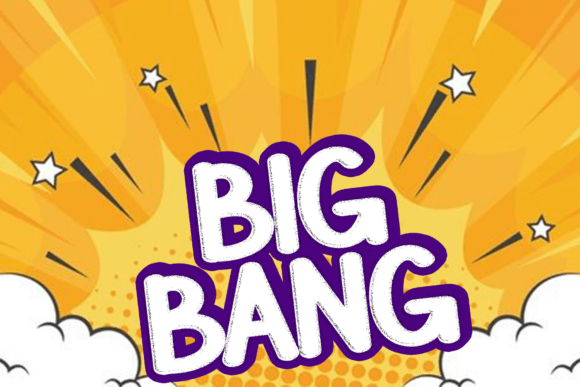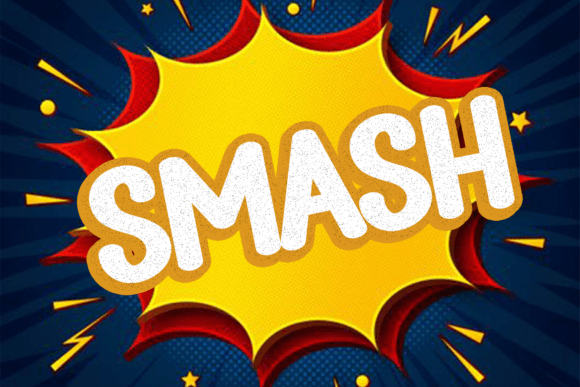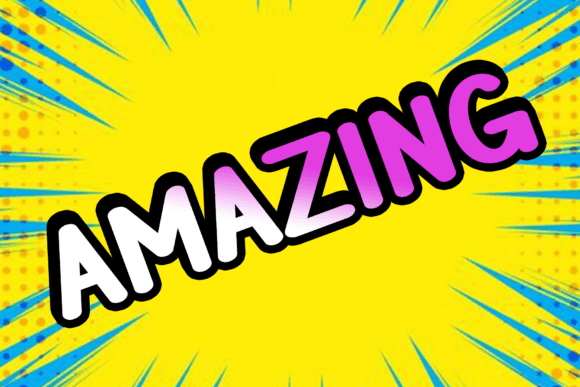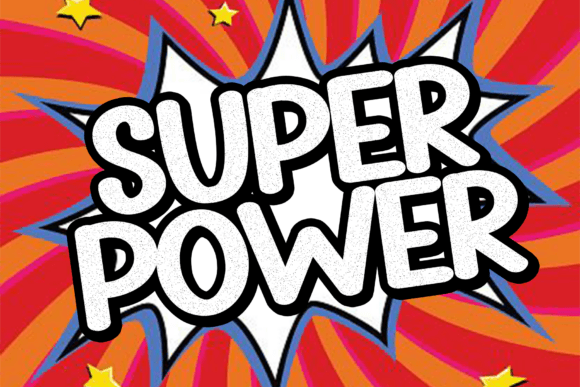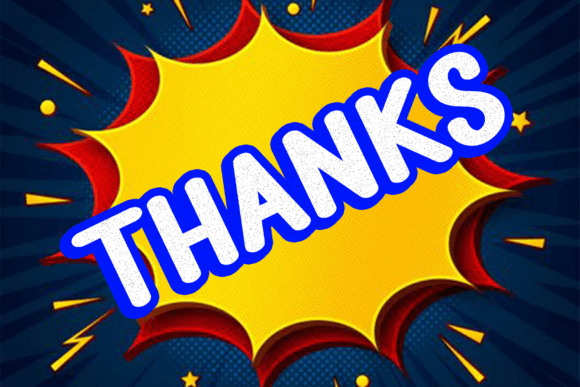
Introducing Comic Strip Font: The Ultimate Guide to Adding a Touch of Whimsy to Your Designs
Are you looking for a font that can add a dash of freshness and casual elegance to your design projects? Look no further than Comic Strip Font! This charming display font is perfect for designers and crafters who want to infuse their work with a sense of laid-back charm. In this article, we’ll dive into the world of Comic Strip Font, exploring its features, uses, and benefits.
What is Comic Strip Font?
Comic Strip Font is a display font that boasts fluid strokes and organic lines, giving it a unique and eye-catching appearance. Its casual elegance makes it perfect for a wide range of design projects, from branding and invitations to social media graphics and more. Whether you’re a professional designer or a crafty DIY enthusiast, Comic Strip Font is sure to add a touch of warmth and personality to your work.
Key Features of Comic Strip Font
- Fluid Strokes: Comic Strip Font features fluid strokes that give it a smooth, effortless look.
- Organic Lines: The font’s organic lines add a touch of whimsy and playfulness to your designs.
- Casual Elegance: Despite its casual nature, Comic Strip Font exudes a sense of elegance that makes it perfect for a wide range of design projects.
- Versatility: This font can be used for everything from branding and invitations to social media graphics and more.
Uses for Comic Strip Font
So, what can you use Comic Strip Font for? The possibilities are endless! Here are a few ideas to get you started:
- Branding: Use Comic Strip Font to create a unique and memorable brand identity that sets you apart from the competition.
- Invitations: Add a touch of whimsy to your invitations with Comic Strip Font, making them perfect for parties, weddings, and other special occasions.
- Social Media Graphics: Use Comic Strip Font to create eye-catching social media graphics that are sure to grab attention.
- Signage: Comic Strip Font is perfect for creating signs, posters, and other display materials that need to make a statement.
Benefits of Using Comic Strip Font
So, why should you choose Comic Strip Font for your design projects? Here are just a few benefits:
- Unique Look: Comic Strip Font offers a unique and eye-catching look that will set your designs apart from the crowd.
- Easy to Read: Despite its playful nature, Comic Strip Font is easy to read, making it perfect for body text and headlines.
- Versatile: This font can be used for a wide range of design projects, from digital graphics to print materials.
- Time-Saving: With Comic Strip Font, you can create professional-looking designs in no time, saving you time and effort.
Tips for Using Comic Strip Font
Here are a few tips for getting the most out of Comic Strip Font:
- Use it sparingly: While Comic Strip Font is perfect for headlines and titles, it’s best to use it sparingly for body text.
- Experiment with colors: Comic Strip Font looks great in a variety of colors, so don’t be afraid to experiment and find the perfect hue for your design.
- Pair it with other fonts: Comic Strip Font pairs well with a variety of other fonts, so try combining it with other fonts to create a unique look.
In conclusion, Comic Strip Font is a charming display font that’s perfect for designers and crafters who want to add a touch of whimsy to their work. With its fluid strokes, organic lines, and casual elegance, this font is sure to make a statement. Whether you’re creating branding materials, invitations, or social media graphics, Comic Strip Font is the perfect choice. So why wait? Download Comic Strip Font today and start adding a touch of freshness and personality to your designs!